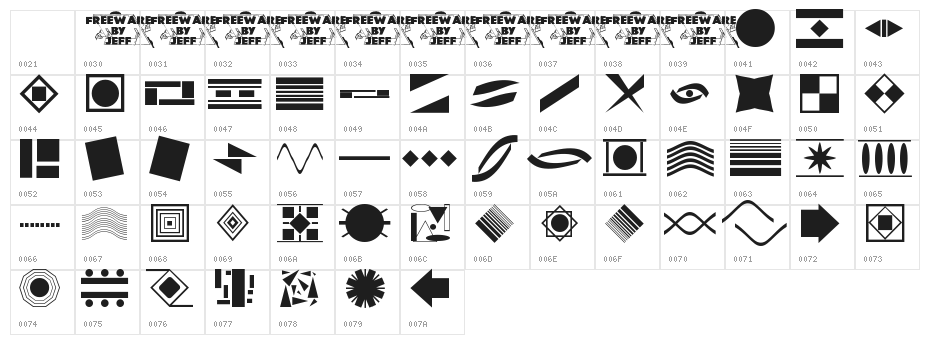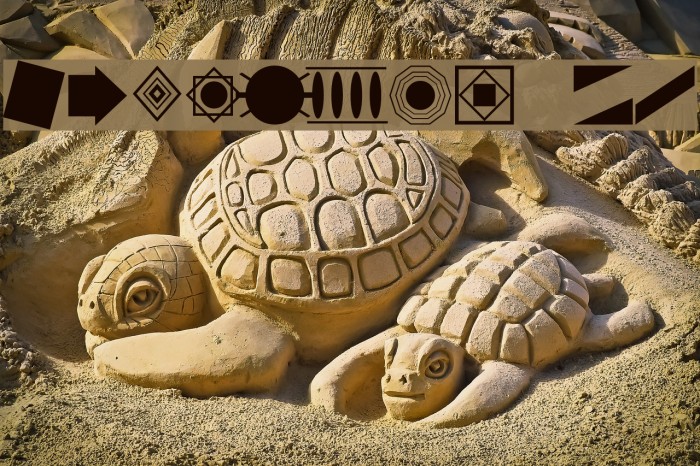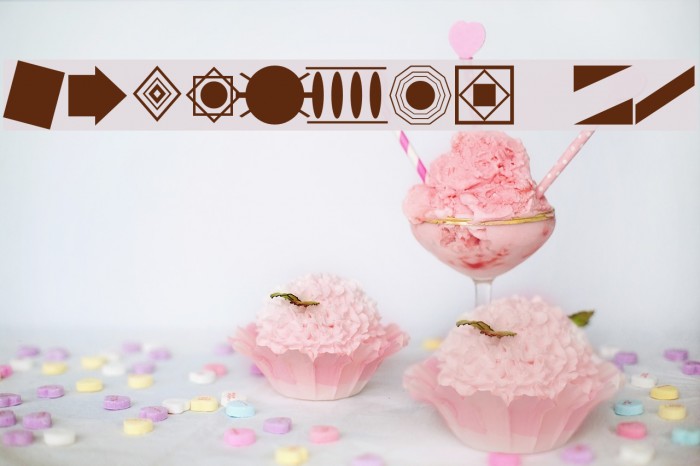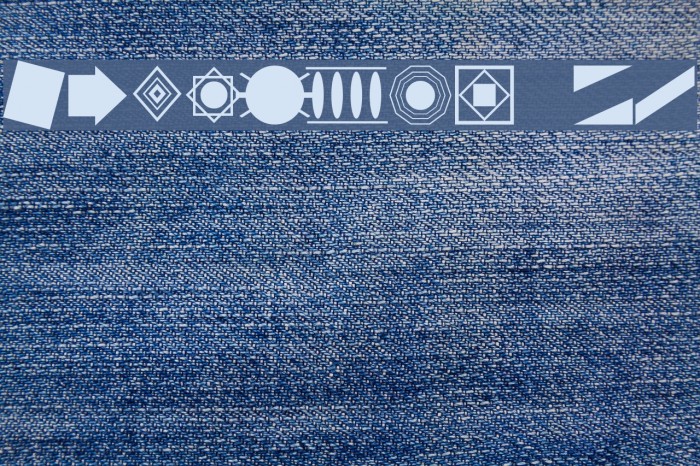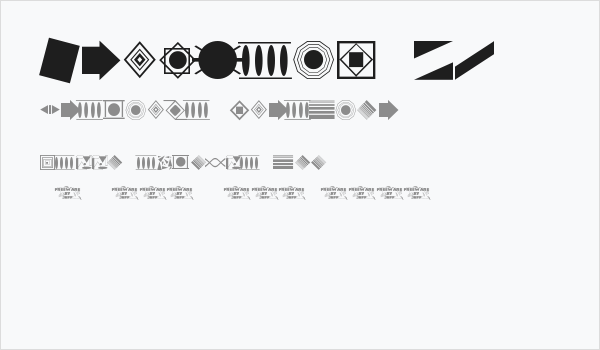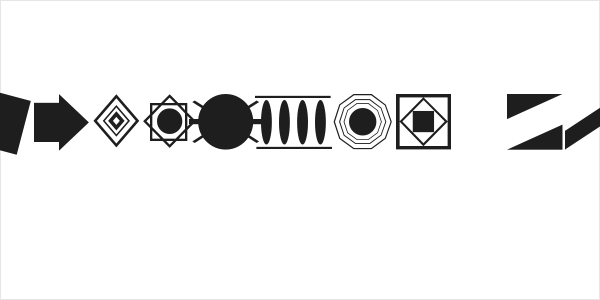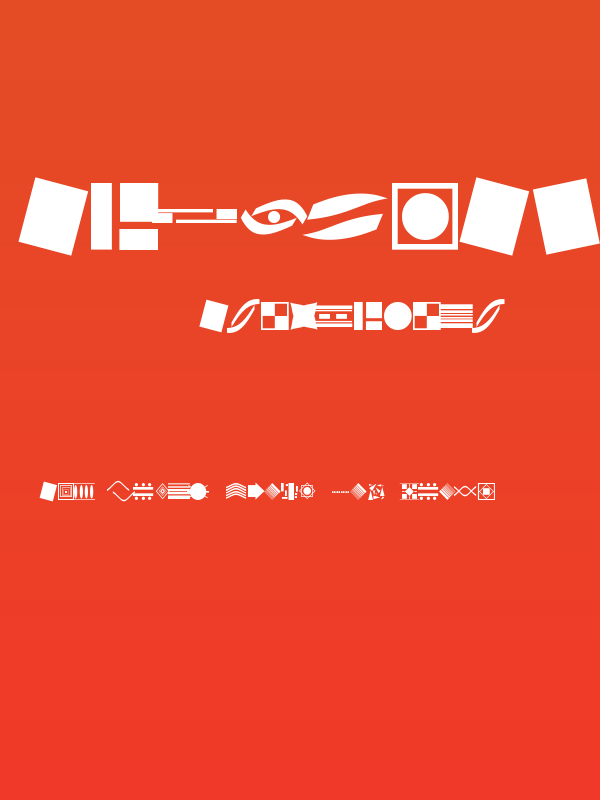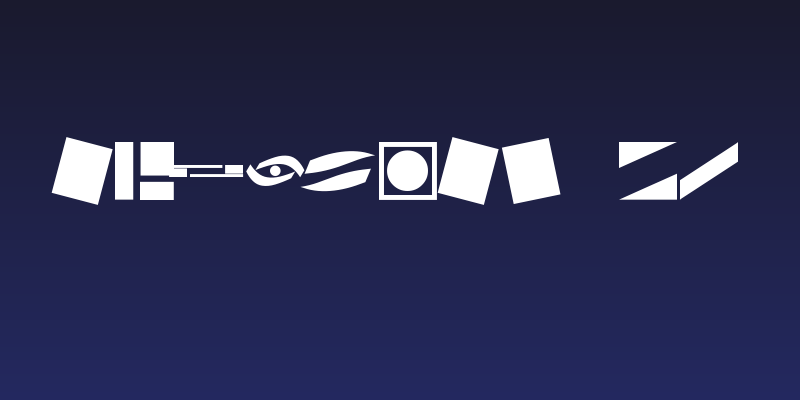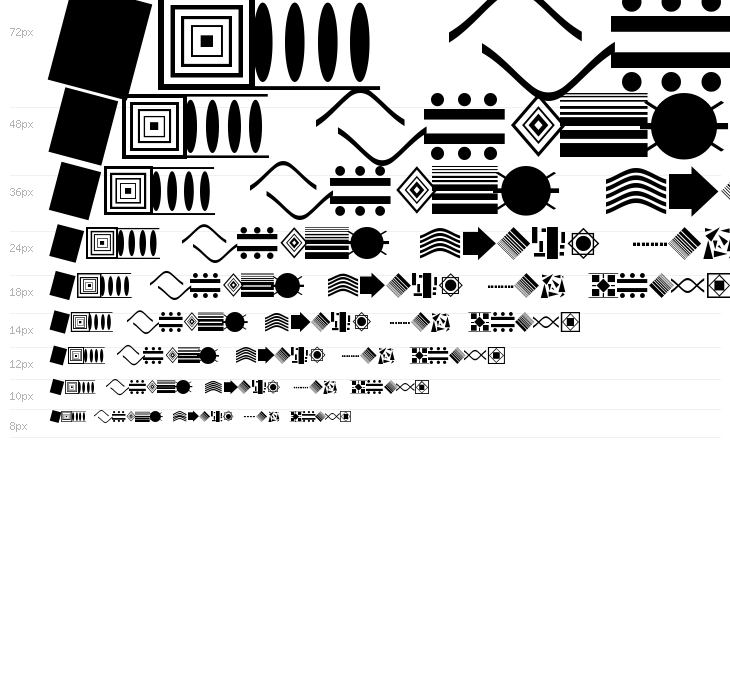
Trinkets JL Font
Trinkets JL Description
This collection features a series of intricate and abstract symbols, each with a unique geometric design. The elements range from circles and squares to more complex shapes like arrows and waves, all crafted with bold lines and varying thicknesses. The designs are highly decorative, offering a modern and artistic flair suitable for creative projects. The symbols are distinct and can be used to add a unique touch to visual compositions, making them ideal for decorative purposes.
| Use Case | Logos, Decorative elements, Graphic design |
| Proposed Projects | Ideal for use in graphic design projects, such as creating unique borders, embellishments for invitations, or artistic logos. They can also be used in digital art or as decorative elements in print media. |